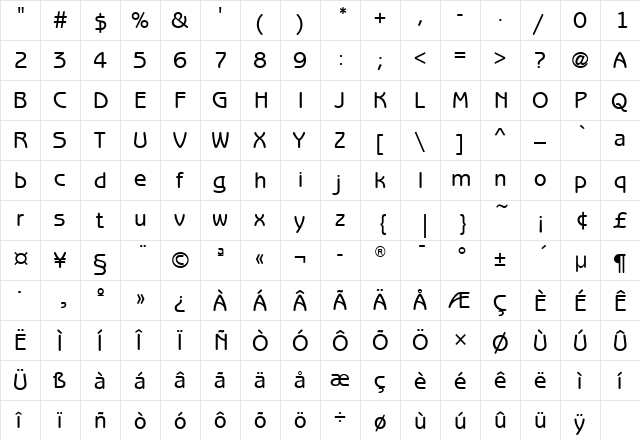
BenguiatGotMdITC Medium
Design Context for BenguiatGotMdITC Typeface
BenguiatGotMdITC offers clean, dependable letterforms without strong stylistic allegiance, making it a practical choice for designers who need flexibility.